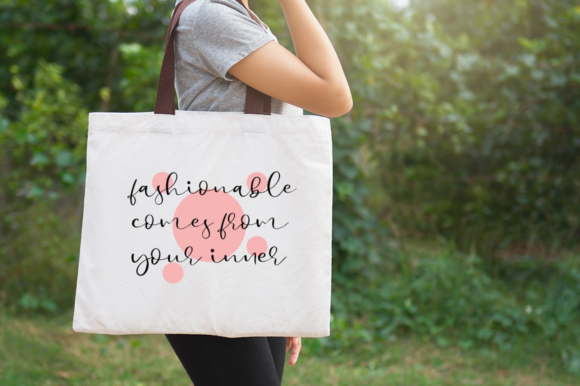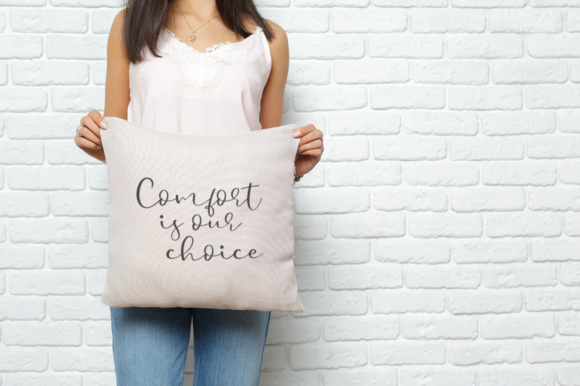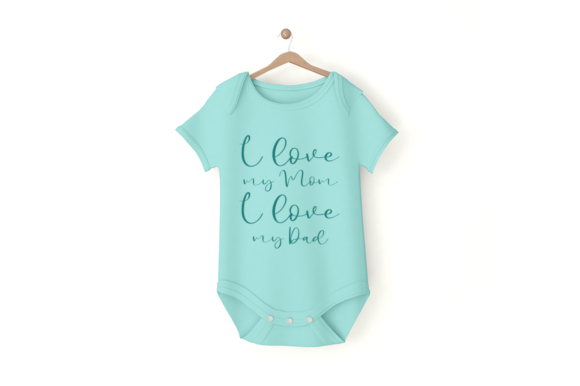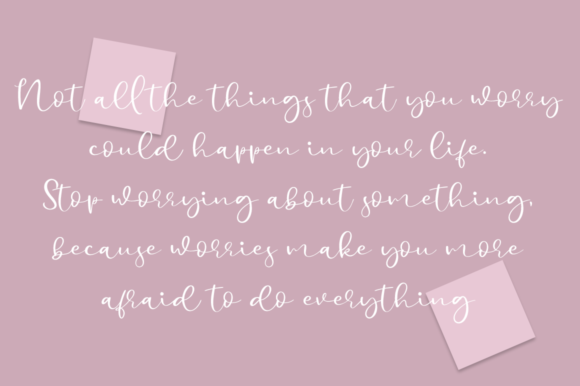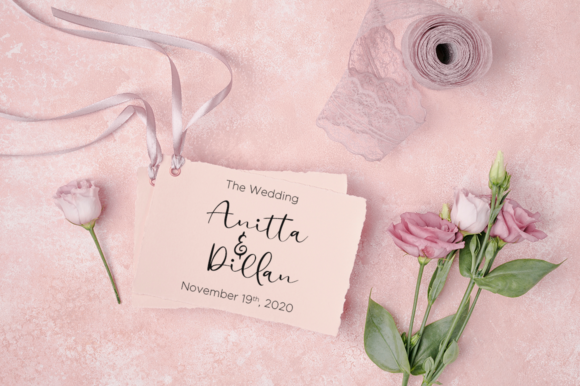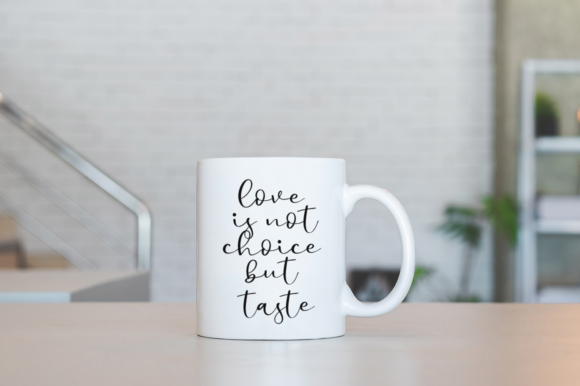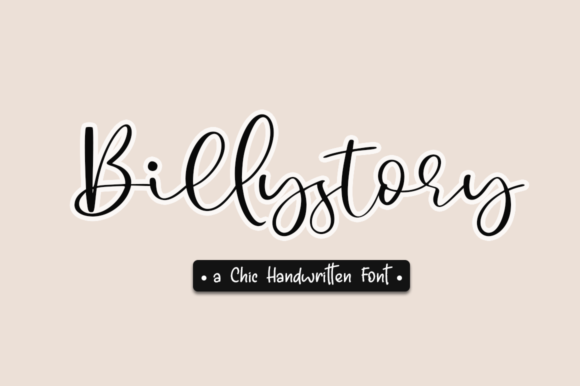
Billystory Font: Elevate Your Designs with Elegance and Sophistication
In the world of typography, fonts play a crucial role in conveying the tone and personality of a design. For designers and crafters seeking to add a touch of elegance and sophistication to their work, Billystory Font is an exceptional choice. This stylish and incredibly elegant script font is perfect for a variety of design projects, including wedding invitations, thank you cards, quotes, greeting cards, logos, business cards, and more.
The Beauty of Billystory Font
Billystory Font boasts a unique and captivating aesthetic that instantly elevates any design. Its elegant script style exudes refinement and poise, making it an ideal choice for designs that require a high level of sophistication. The font’s flowing lines and curves create a beautiful, handwritten look that adds a personal touch to any project.
Wedding invitations, save-the-date cards, and other event-related designs are a perfect match for Billystory Font. The font’s elegant and refined appearance sets the tone for a luxurious and memorable event. Whether you’re designing for a formal wedding, a vintage-inspired gathering, or a milestone celebration, Billystory Font is sure to impress.
Billystory Font is not limited to wedding and event designs. Its versatility makes it suitable for a wide range of projects, including:
- Thank you cards: Express gratitude with style and elegance.
- Quotes: Add a touch of sophistication to inspirational and thought-provoking quotes.
- Greeting cards: Create beautiful and heartfelt greeting cards for special occasions.
- Logos: Elevate your brand’s identity with a unique and elegant script font.
- Business cards: Make a lasting impression with a professional and refined design.
Why Choose Billystory Font?
With so many fonts available, why choose Billystory Font? Here are just a few reasons:
- Elegance: Billystory Font exudes sophistication and refinement.
- Versatility: Suitable for a wide range of design projects.
- Handwritten touch: Adds a personal and unique touch to any design.
- Easy to read: Despite its elegant appearance, Billystory Font remains clear and easy to read.
Tips for Using Billystory Font
To get the most out of Billystory Font, consider the following tips:
- Pair with complementary fonts: Combine Billystory Font with sans-serif fonts for a striking contrast.
- Use for headings and titles: Billystory Font is perfect for headings and titles, adding a touch of elegance to your design.
- Experiment with colors: Try pairing Billystory Font with different colors to create a unique and eye-catching design.
Billystory Font is a stylish and elegant script font that can elevate any design project. Its versatility, elegance, and handwritten touch make it a perfect choice for designers and crafters seeking to add a touch of sophistication to their work. Whether you’re designing wedding invitations, greeting cards, or logos, Billystory Font is sure to impress. So why not give it a try and see the difference it can make in your designs?